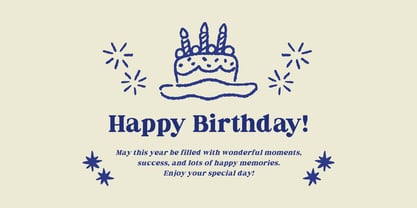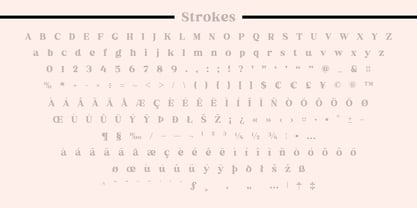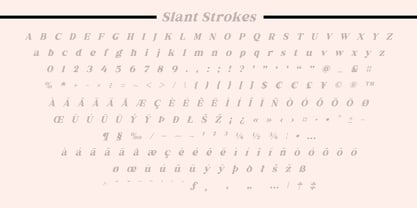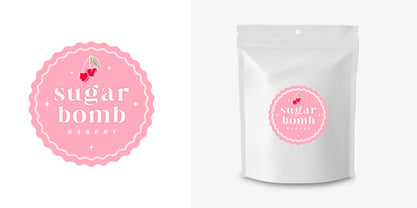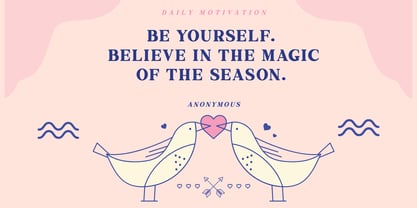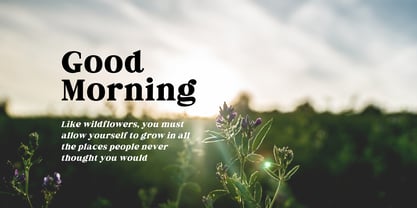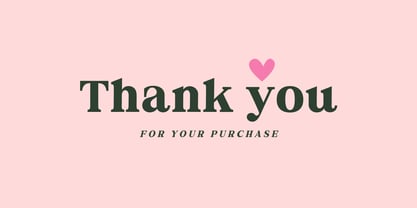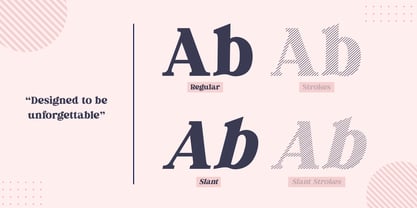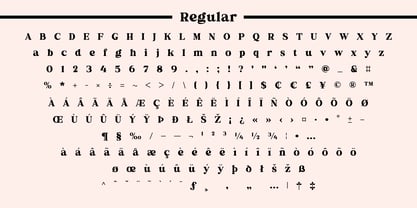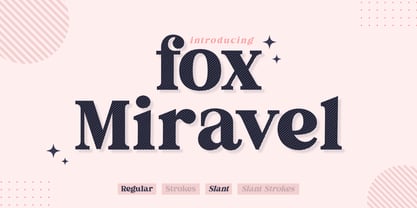
Fox Miravel
The Fox Miravel Font Family was designed by Rattana Rattanawan and published by Fox7. Fox Miravel contains 4 styles and family package options. More about this family
Fox Miravel is a sophisticated serif font designed to be truly unforgettable. With its classic structure, soft curves, and refined contrast, Fox Miravel brings a timeless elegance with a modern twist — perfect for brands that want to look graceful, confident, and premium. ✨ Perfect for: ✣ Branding & logo design ✣ Fashion & beauty projects ✣ Editorial layouts & magazines ✣ Packaging & labels ✣ Quotes, posters & social media ✣ Wedding invitations & luxury stationery